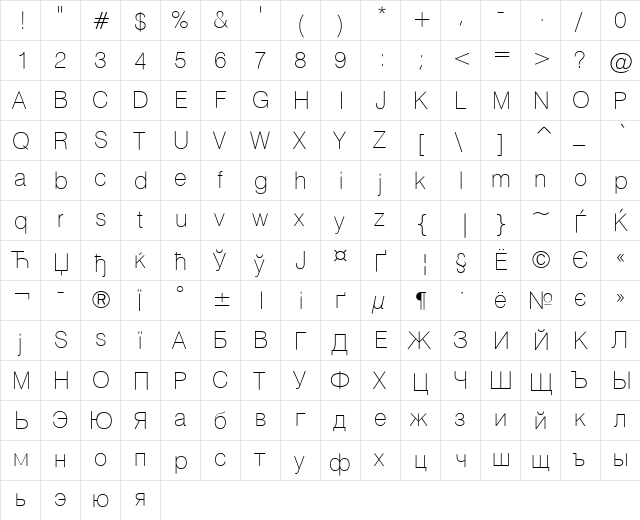
HeliosThin Regular Font Preview
HeliosThin Regular
Design Context for HeliosThin Typeface
HeliosThin takes a measured approach to typography — its balanced proportions and neutral character make it a reliable workhorse for both digital and print work. Its slender proportions lend an understated elegance to any composition.